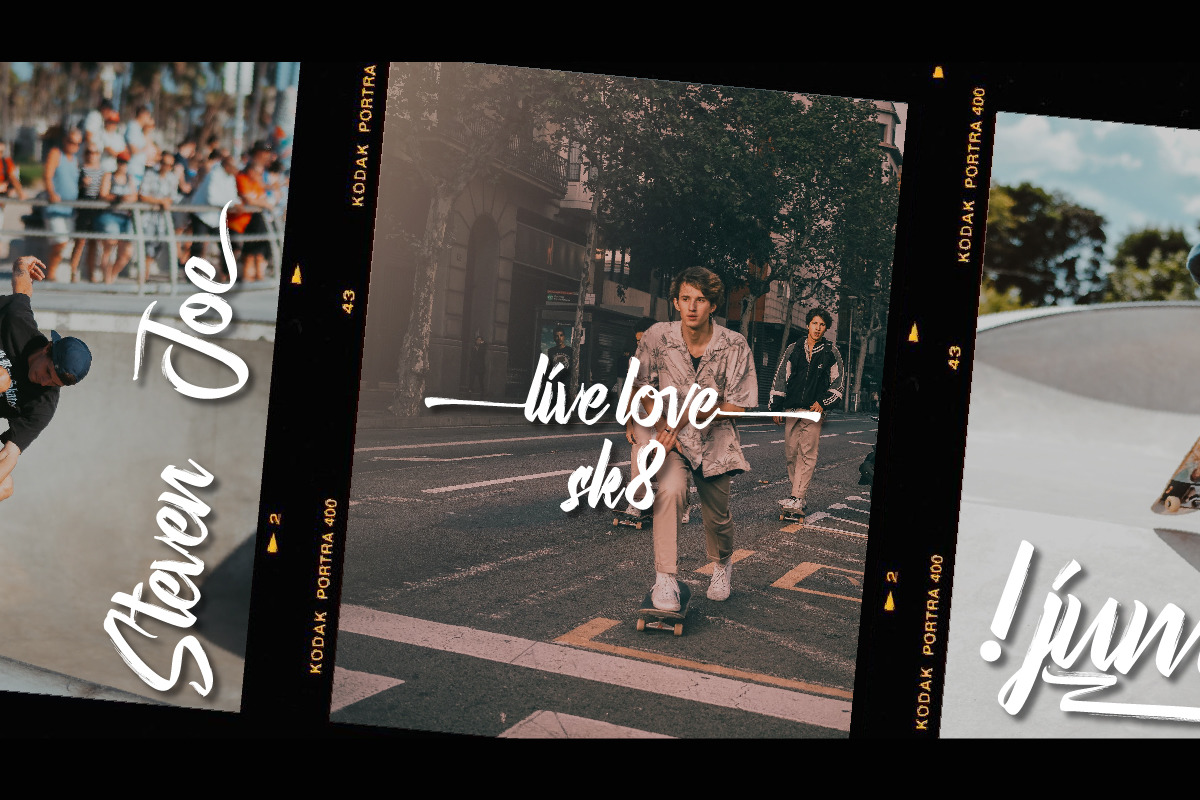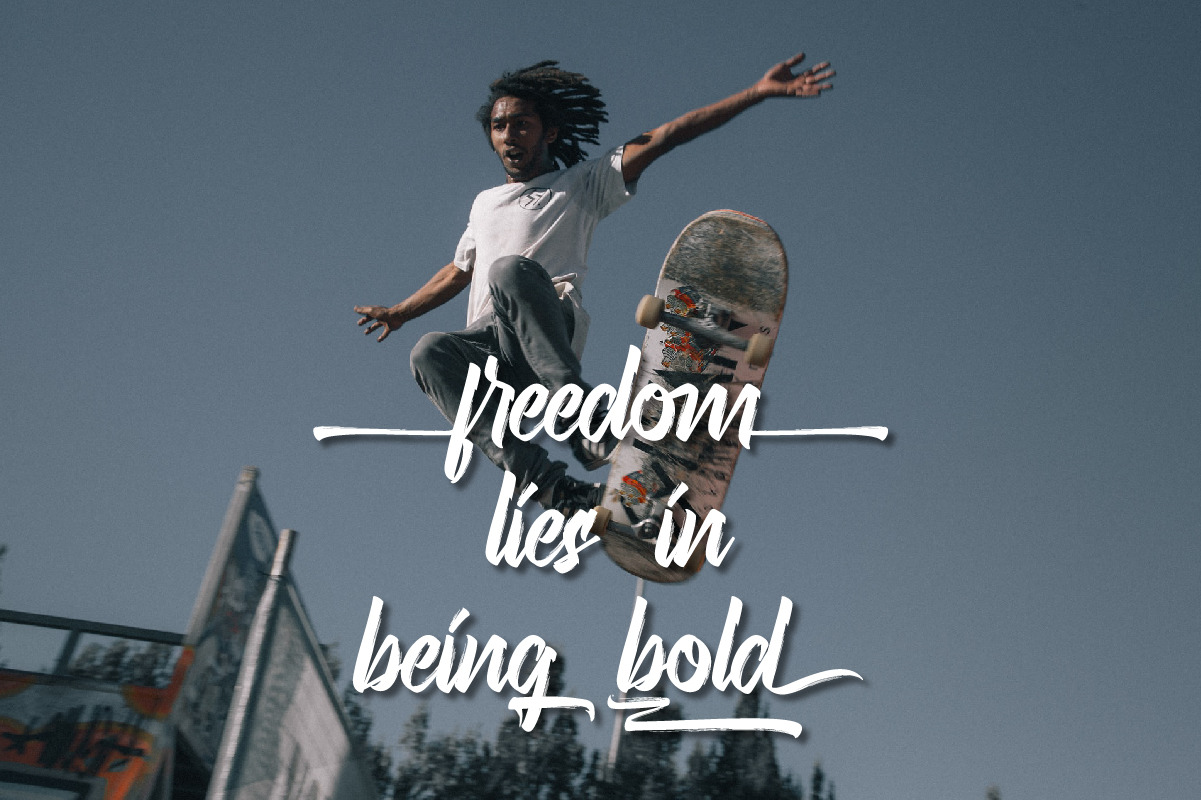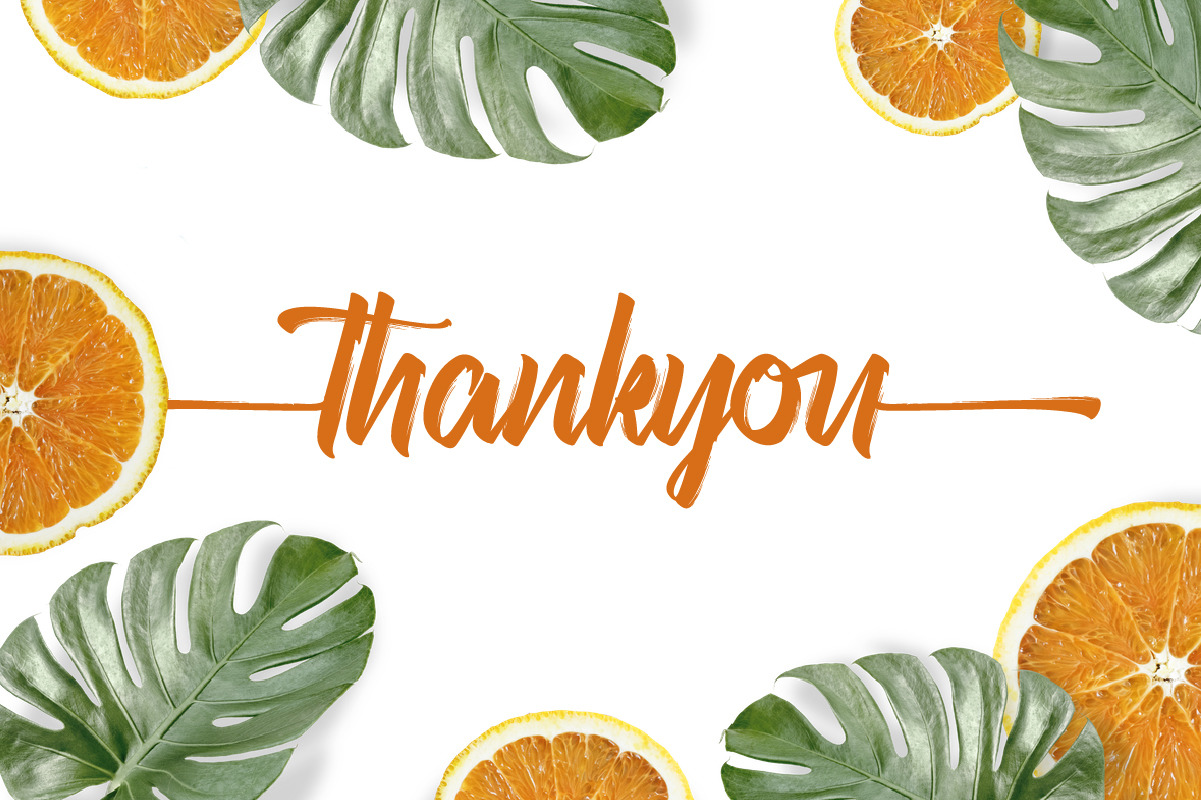
Kicktails Grunge Brush Script Font
Kicktails is a textured classic brush font with exclusive style.
Kicktails for any your special projects including : headlines, promotion, events, branding, advertising, magazine, signage, invitation, stationery, social media posts, label, or and any projects that need unique strong style. The theme/industries of this font is Vintage, Horror, Movie, Game, Magazine, Music, Video, Sports, Racing etc